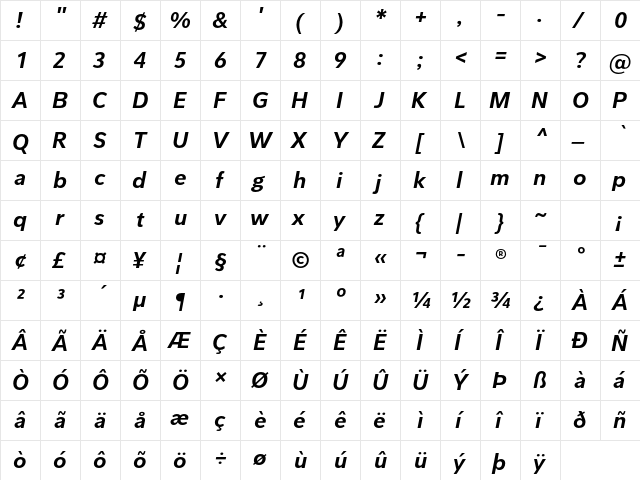
Pelita Std Bold Italic Font Preview
| Designer | Anugrah Pasau |
Design Context for Pelita Std Typeface
Pelita Std takes a measured approach to typography — its balanced proportions and neutral character make it a reliable workhorse for both digital and print work. Its italic angle brings a sense of urgency and motion to the letterforms. The heavy weight commands attention and anchors typographic hierarchies.